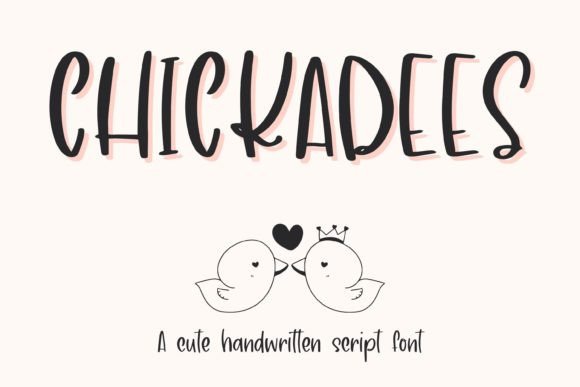
Looking for a fun, quirky, and versatile handwriting font that will make your designs stand out? Look no further than Chickadees Font! Designed by the talented team at designingdigitals, this cute handwritten font is perfect for a wide range of projects, from logos and greeting cards to t-shirt designs, stickers, social media posts, crafts, and much more.
With its unique and playful style, Chickadees is one of our most popular fonts for cricut, illustrator, procreate, or any program that supports open type fonts. It's the perfect choice for anyone looking to add a touch of personality and charm to their designs.
So why choose Chickadees Font? Not only is it a high-quality and beautifully designed font, but it's also incredibly easy to use and customize. Whether you're a professional graphic designer or just getting started with DIY projects, Chickadees is the perfect choice for creating eye-catching and memorable designs that will stand out from the crowd.